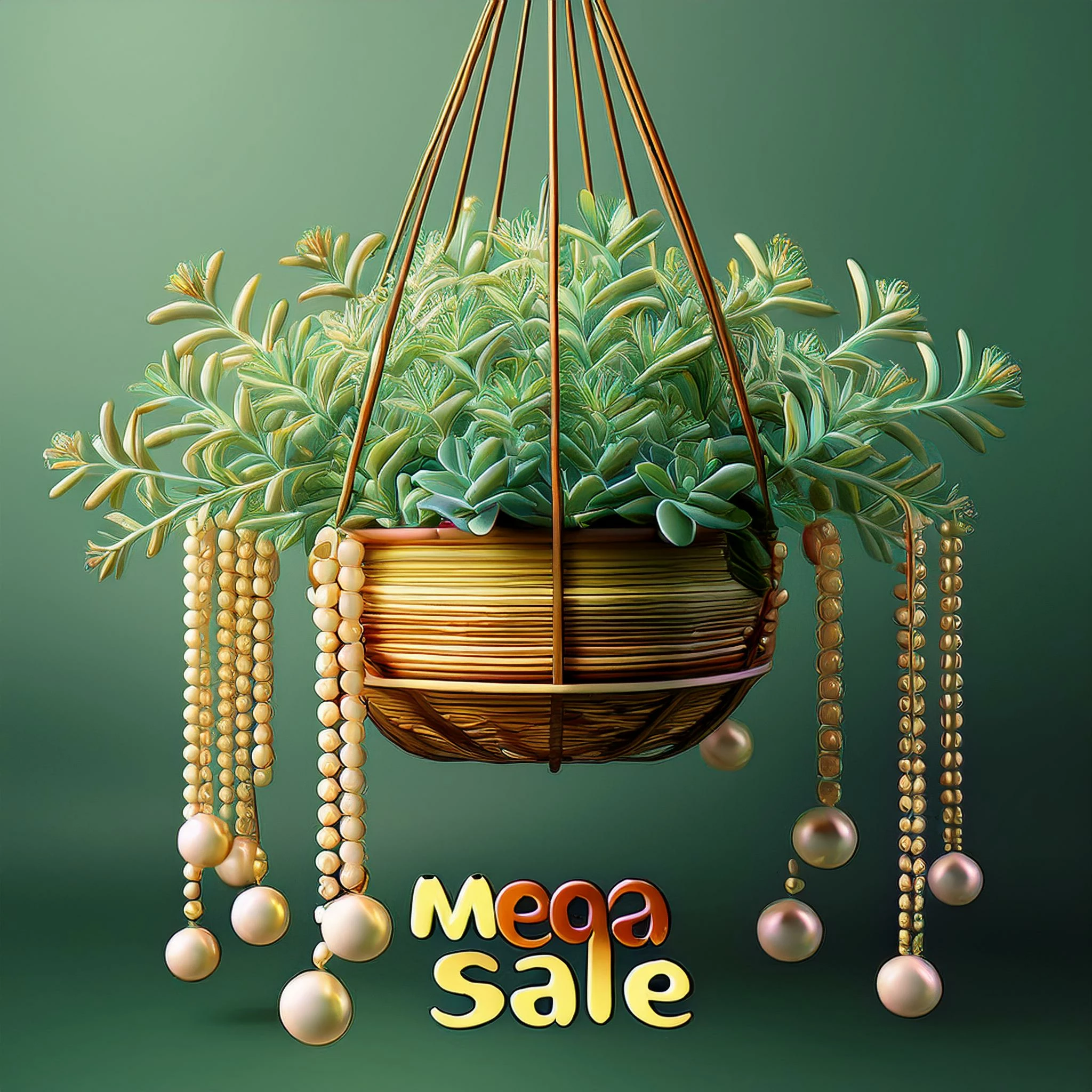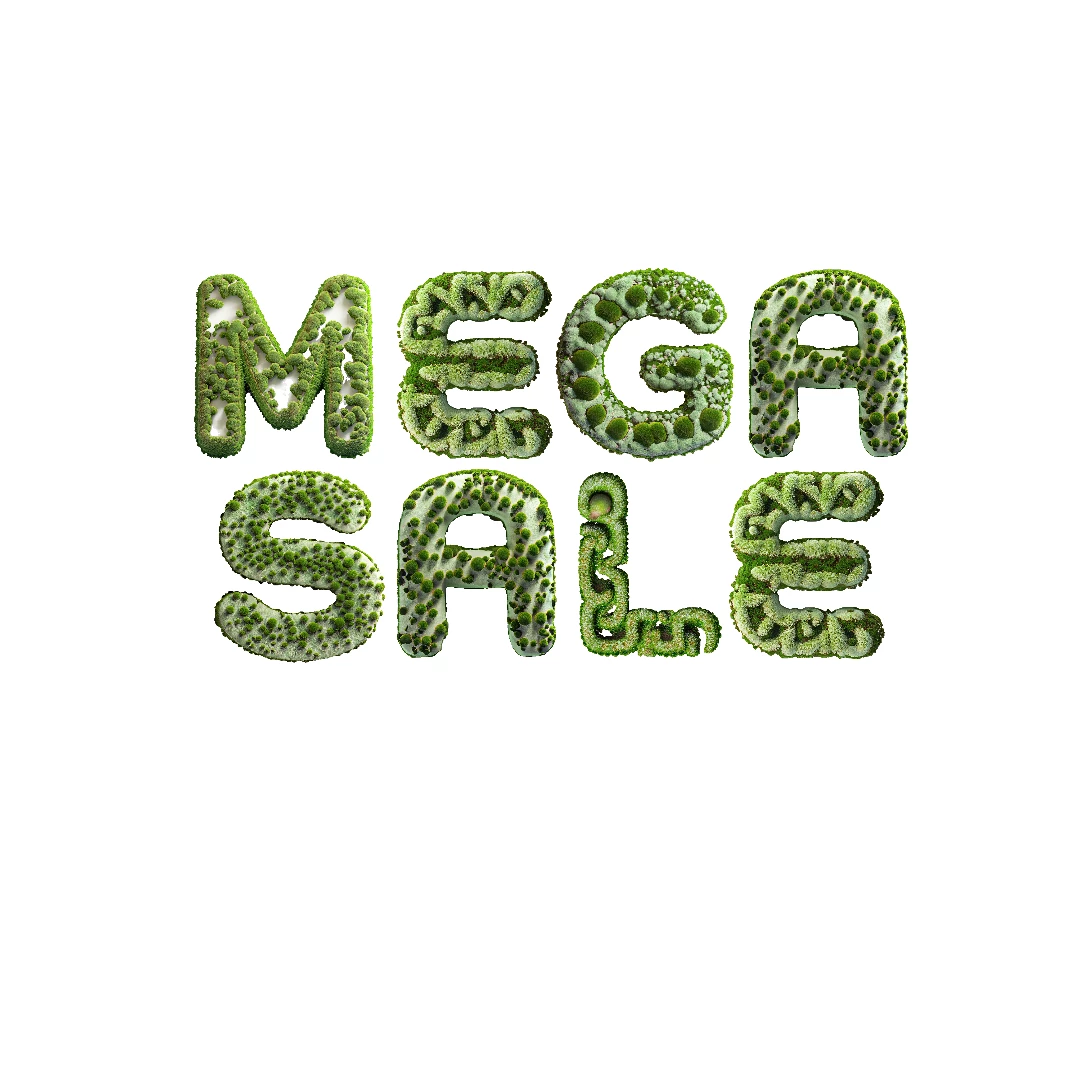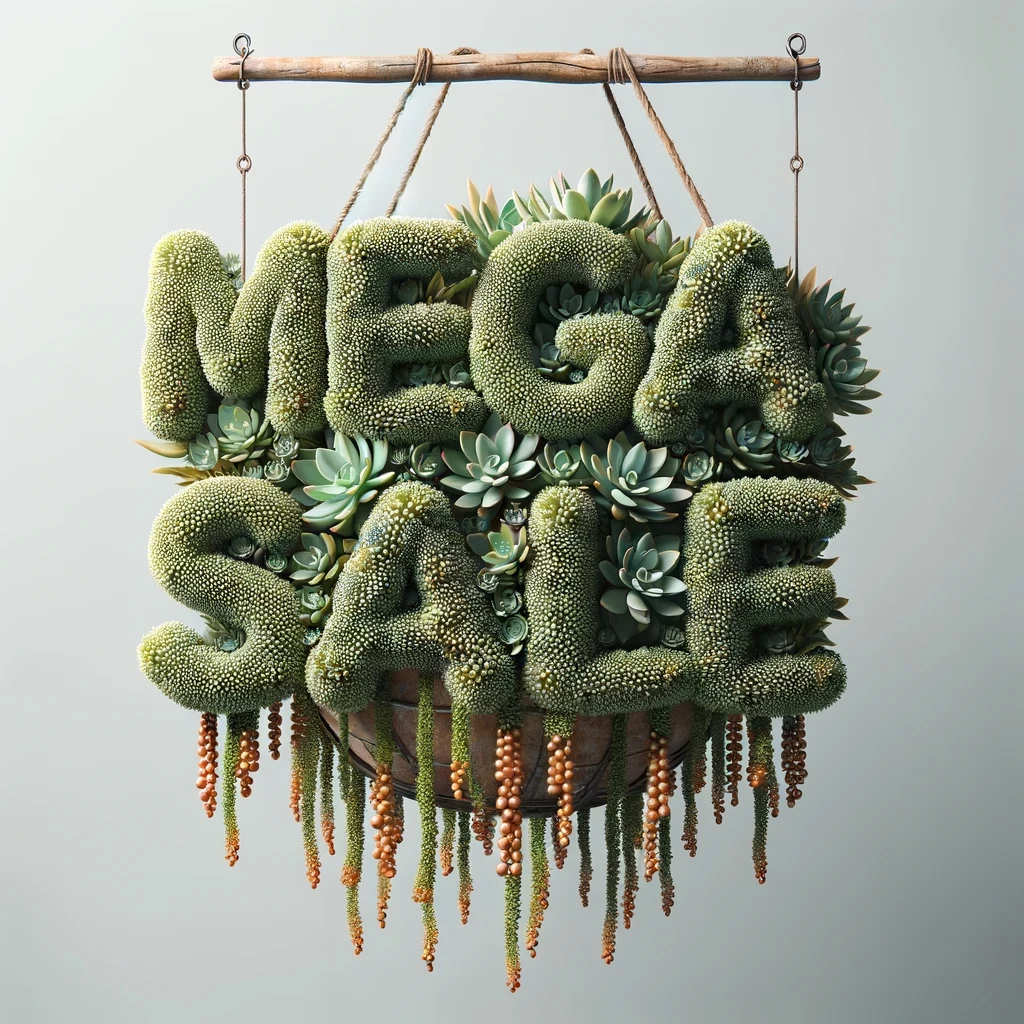
Words as font images...
How can I create text with a design, such as 'New Website Launch,' where plants appear to be growing out of the letters? I'm looking for tips on techniques to achieve this effect in the best currently possible way, as I having to resort to falling back to Dall-e
See below for Dall-e v Firefly results.
Design an artistic depiction of the phrase 'MEGA SALE' using the style of a Senecio Rowleyanus (String of Pearls) plant arranged in a hanging basket
You can do the words with whatever you want in Adobe Express; it works wonderfully.
Then maybe you can create the rest of the image in firefly, and combine the two either in adobe express or in photoshop.
You can maybe get a little closer with a structure reference, but it would still require a lot of tries. Maybe generate both elements separately.
You can do the words with whatever you want in Adobe Express; it works wonderfully.
Then maybe you can create the rest of the image in firefly, and combine the two either in adobe express or in photoshop.
Maybe you're looking for such an idea.
I made this in adobe express.
Yes, for everyone else, this is "text effects" which can be reached from the Adobe Express main page: